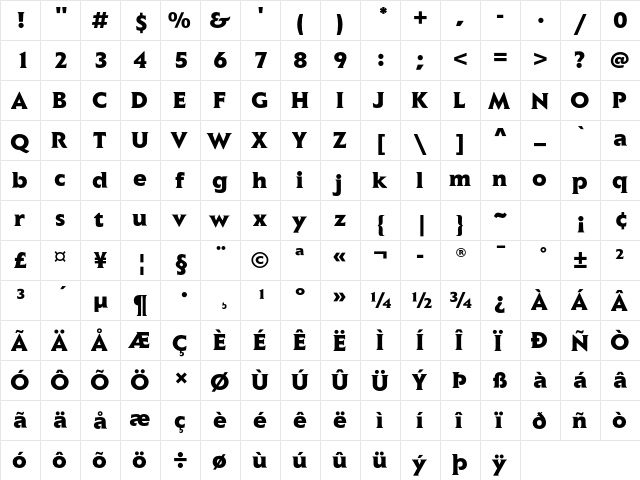
Elan ITC Std Black
| Designer | Albert Boton |
Design Context for Elan ITC Std Typeface
Elan ITC Std offers clean, dependable letterforms without strong stylistic allegiance, making it a practical choice for designers who need flexibility.